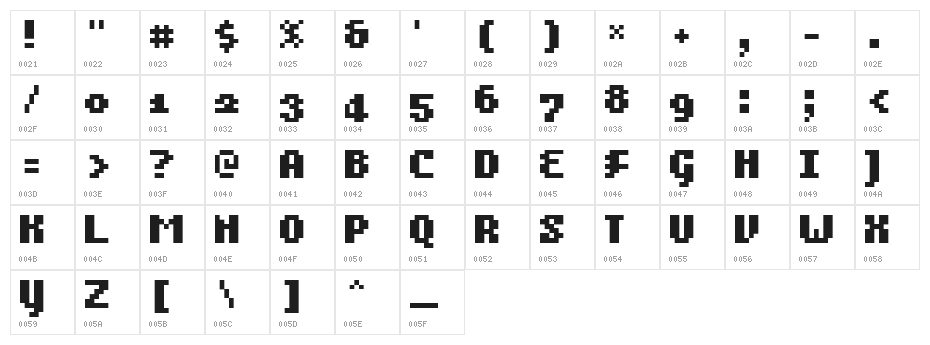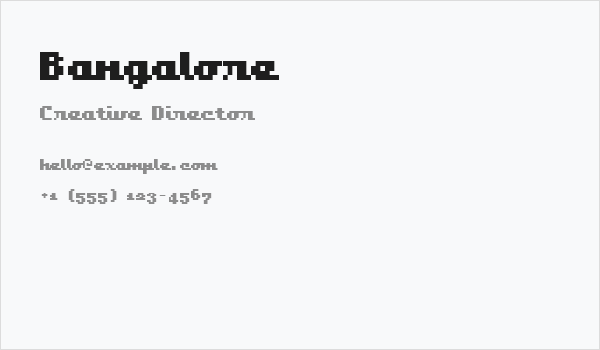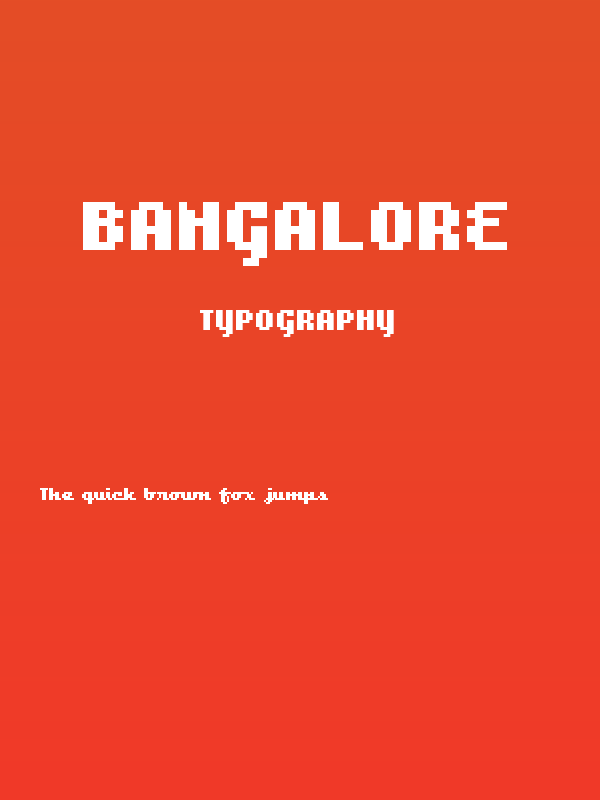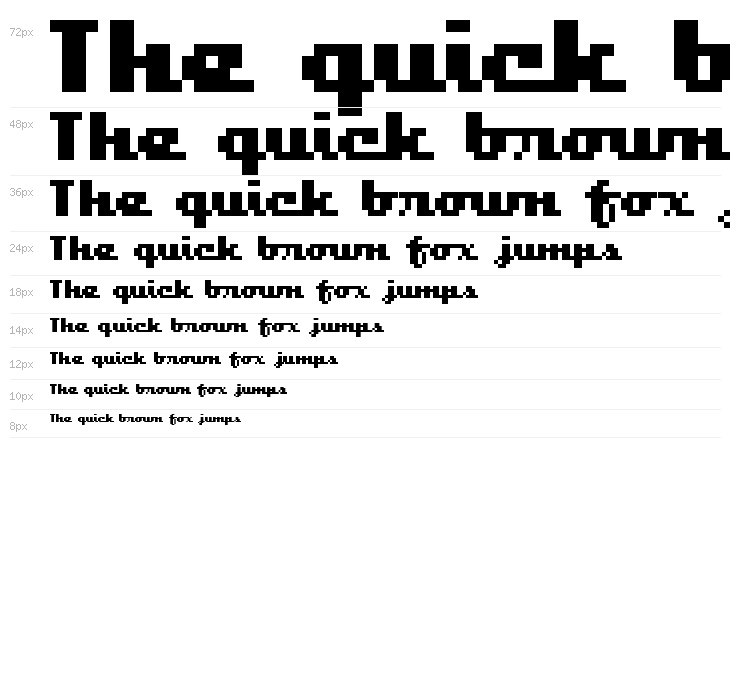
Bangalore Font
Bangalore Description
This font features a bold, pixelated design reminiscent of early digital or video game typography. Each character is constructed with a blocky, grid-like structure, giving it a distinctly retro, 8-bit appearance. The uppercase and lowercase letters maintain a consistent height, contributing to a uniform and cohesive look. Numbers and special characters follow the same pixelated style, ensuring visual harmony across all elements. The font's geometric simplicity and nostalgic feel make it ideal for projects that aim to evoke a sense of vintage digital aesthetics.
| Overall Style | Vintage |
| Proposed Projects | Ideal for video game design, retro-themed graphics, digital art projects, and nostalgic branding. |